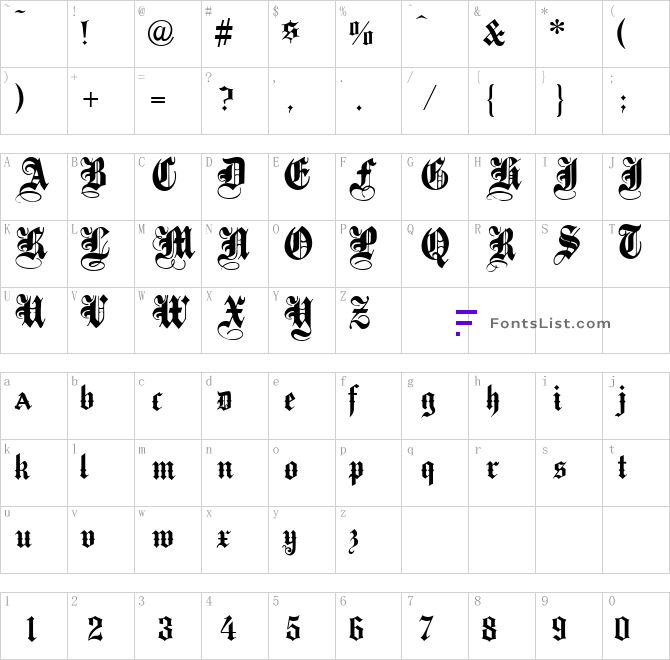
- Font Name:Abbey Dawn by ThaiAvrilLavigne
- Subfamily:Medici Text
- Full Name:Abbey Dawn by ThaiAvrilLavigne
Abbey-Dawn-by-ThaiAvrilLavigne.ttf is a very beautiful artistic font, Abbey-Dawn-by-ThaiAvrilLavigne.ttf is widely used in the design and printing of various books and pictures,Abbey-Dawn-by-ThaiAvrilLavigne.ttf has a strong visual impact,Abbey-Dawn-by-ThaiAvrilLavigne.ttf is a commonly used font in newspapers, magazines and books, and is used in posters, e-commerce Poster design, store design, logo design, font design and other fields.Abbey-Dawn-by-ThaiAvrilLavigne.